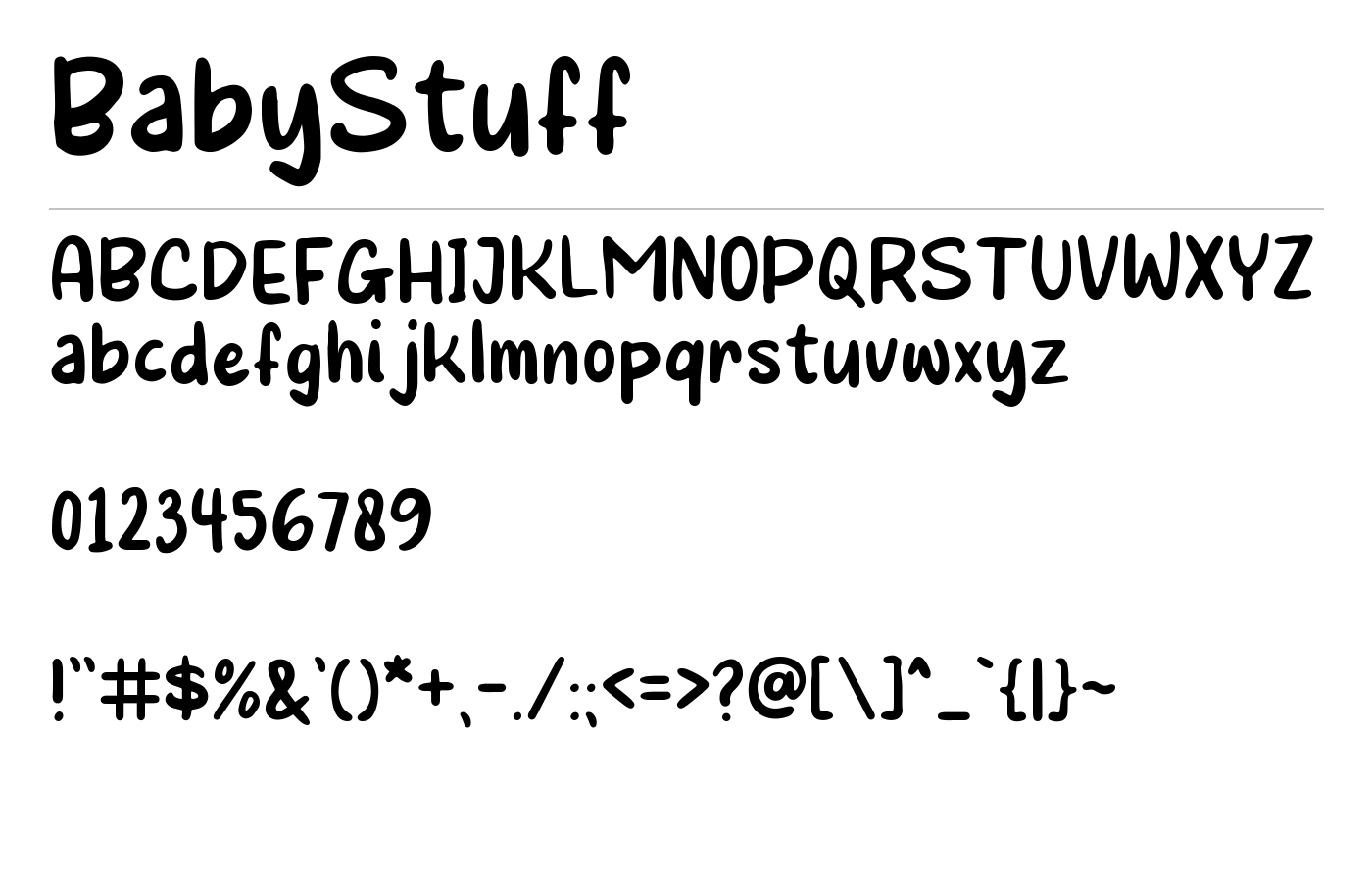
BabyStuff is a playful and friendly sans serif font with a hand-drawn, casual feel. Its rounded, slightly irregular letterforms and moderate x-height give it a warm, approachable personality, making it perfect for children's products, informal branding, and creative projects that seek a fun and inviting tone. This font works best for headlines, logos, and packaging where a youthful, lively vibe is desired.
BabyStuff Font
About BabyStuff Font